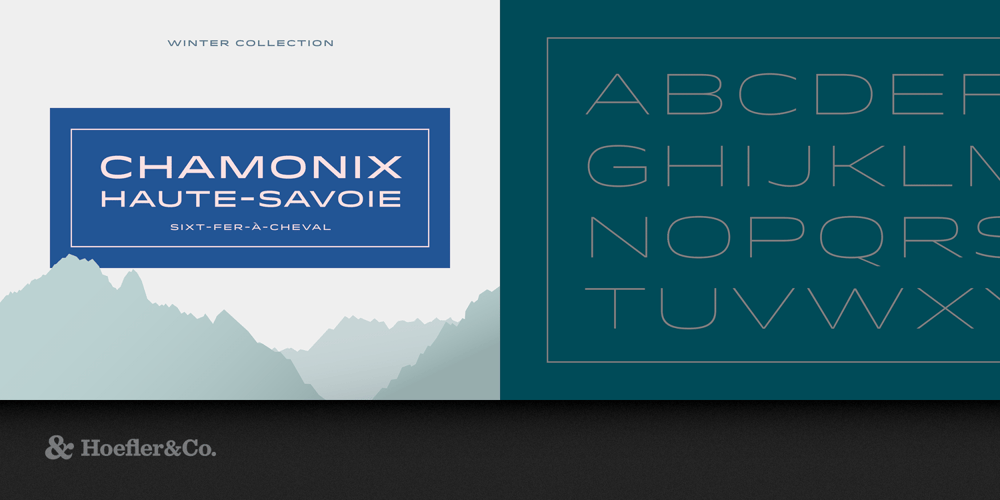
Idlewild
Idlewild font
Idlewild Font Family was designed by Tobias Frere-Jones with Jonathan Hoefler and published by Hoefler & Co.. Idlewild contains 5 styles and family package options. A distinctive typeface that’s at home everywhere it goes. The Idlewild typeface was designed by Tobias Frere-Jones with Jonathan Hoefler in 2004. A wide sans serif with extroverted gestures and serpentine curves, Idlewild recalls the hopeful and ambitious lettering of cruise ships and airplanes from America’s golden age of travel. Idlewild is named for the New York City airport that opened in 1948, known today as John F. Kennedy International Airport.